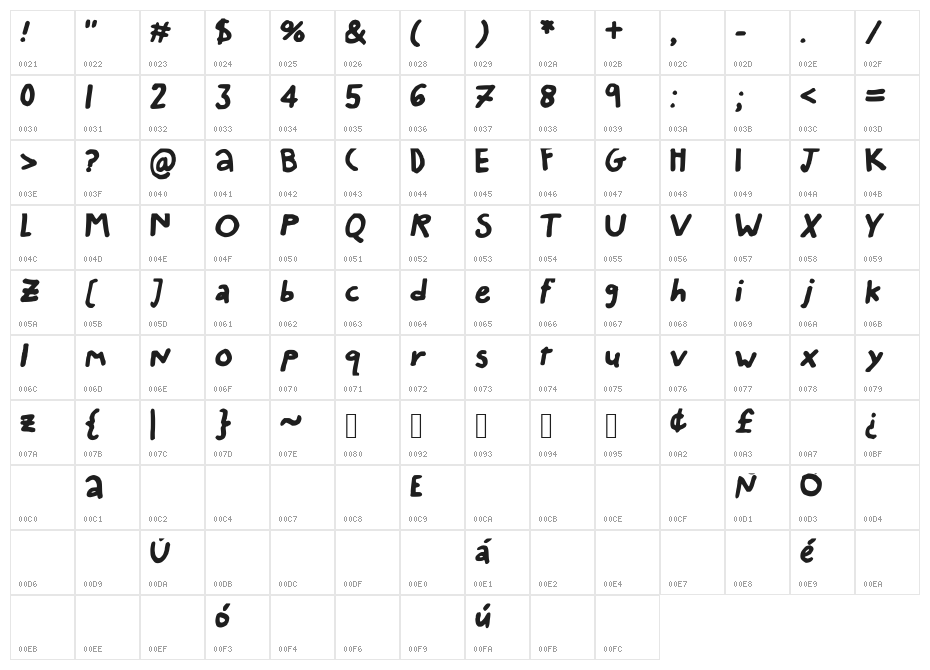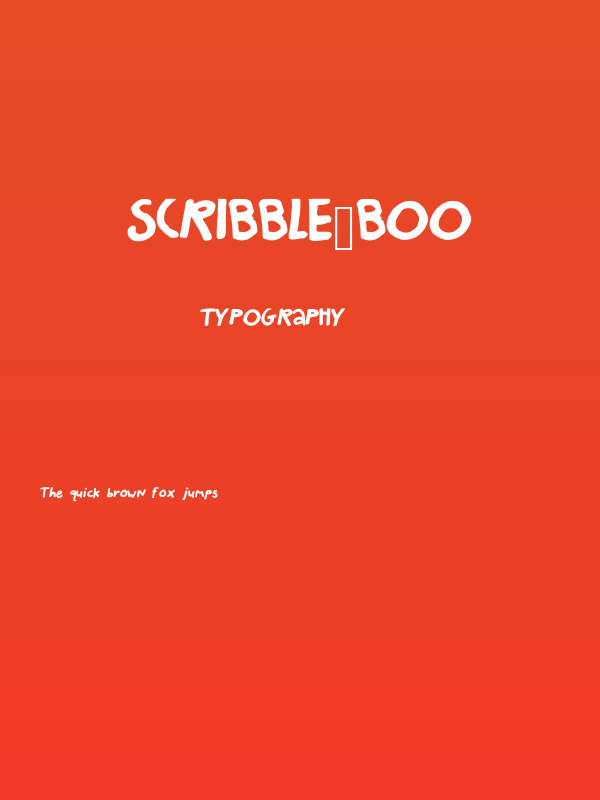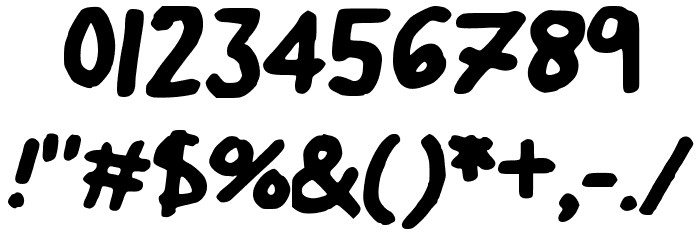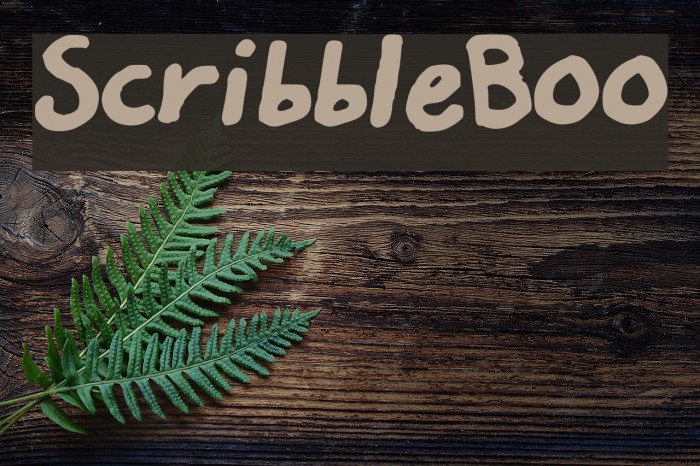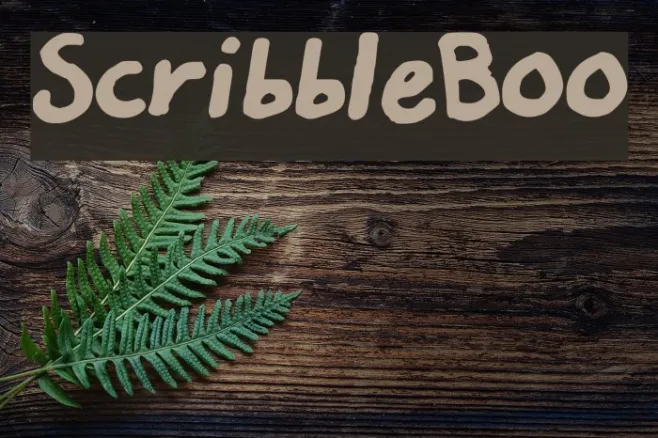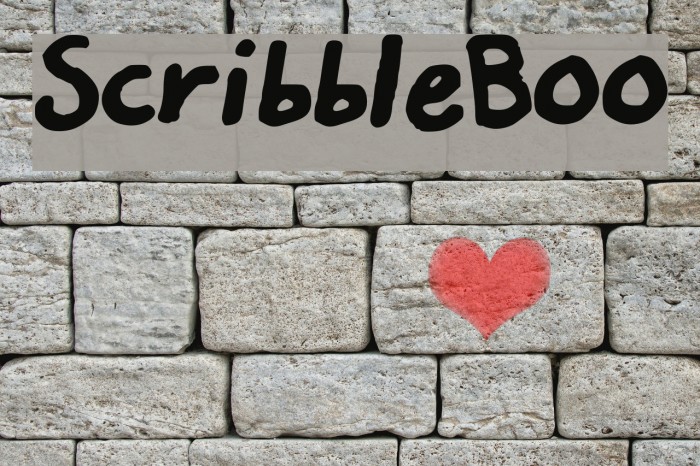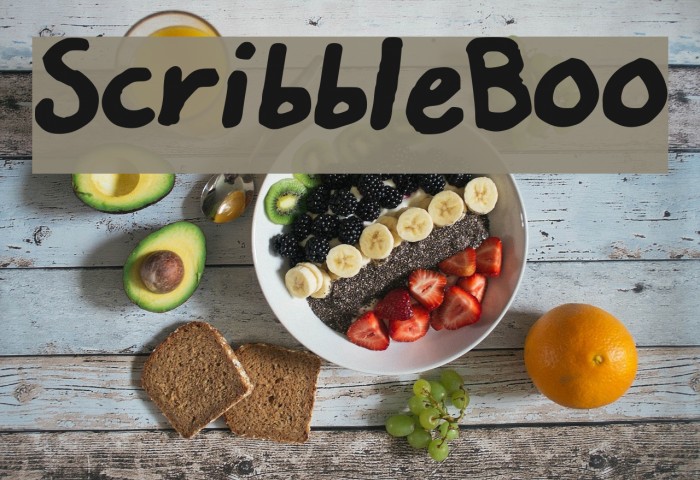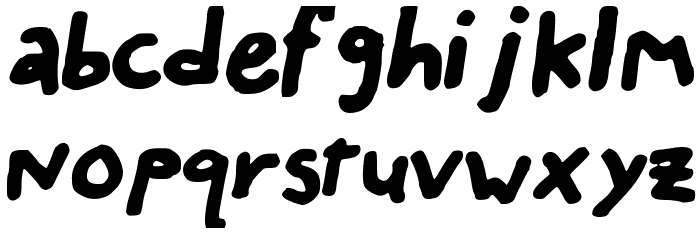
Scribble_Boo Font
Scribble_Boo Description
This playful and energetic font features a hand-drawn style with bold, irregular strokes that give it a lively and informal appearance. The letters are slightly tilted and vary in size, adding to the whimsical and spontaneous feel. The uppercase and lowercase characters maintain a consistent thickness, while the numbers and special characters follow the same playful design. The overall look is reminiscent of a child's handwriting or a casual doodle, making it perfect for projects that require a fun and approachable aesthetic.
| Proposed Projects | Ideal for children's books, playful branding, casual invitations, and creative posters. |